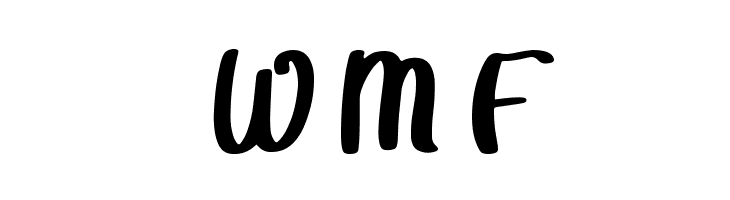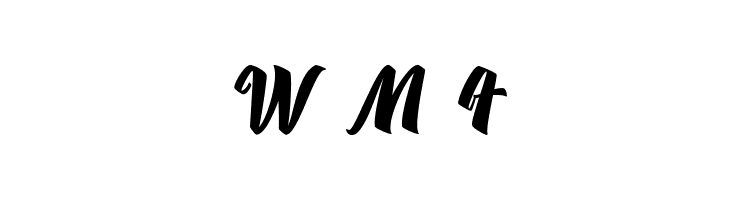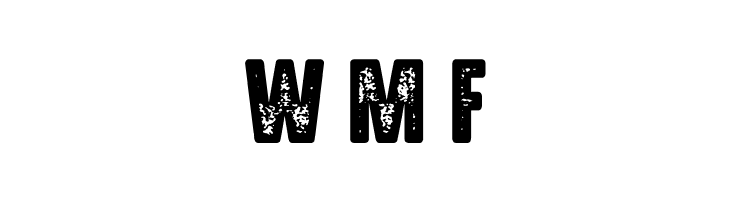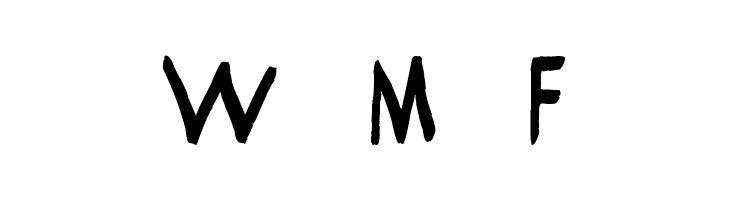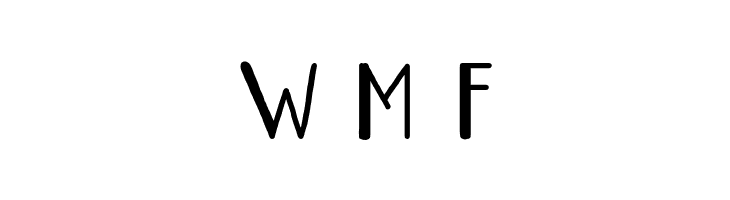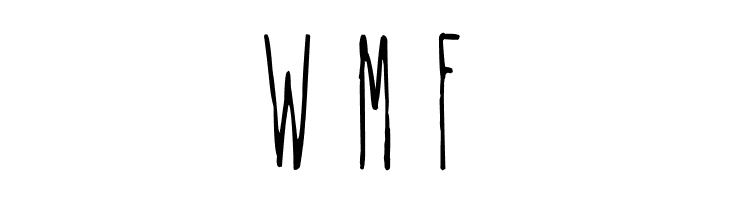
• Higher Than High
A tall, narrow, hand-drawn font with an artistic flair.
• HigherBounties
An elegant script font with ornate, flowing letterforms.
• HighLight
• Highlove -Personal Use
A playful, bold script font with a hand-drawn, whimsical style.
• HighVoltage Heavy Rough
( Fonts by Levi Szekeres )
A bold, heavy font with a rough, distressed texture for a rugged, industrial look.
• HIJABMU
( Fonts by Setype )
A playful, bold, and rounded font with a hand-drawn feel.
• Hilgreds Script
A bold, elegant script font with flowing, interconnected strokes.
• Hillogam
A bold, playful script font with smooth, flowing strokes and a lively handwritten style.
• Hillton
A bold and italicized font with dynamic, slanted letterforms.
• Hilona
A playful, handwritten-style font with rounded edges and consistent stroke thickness.